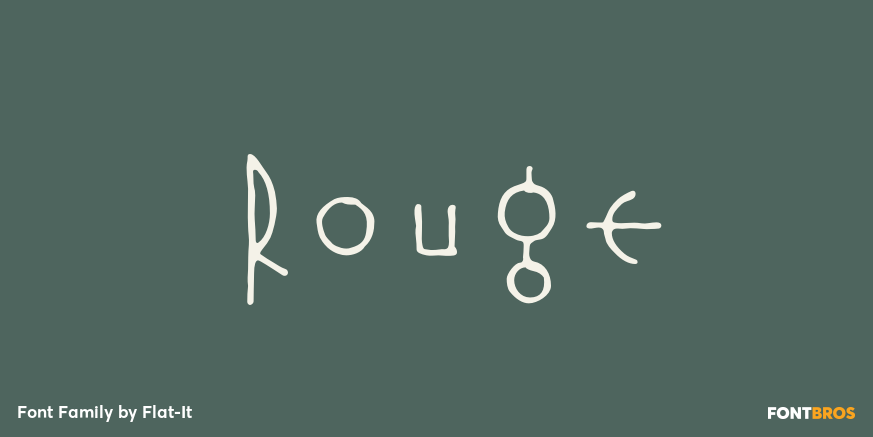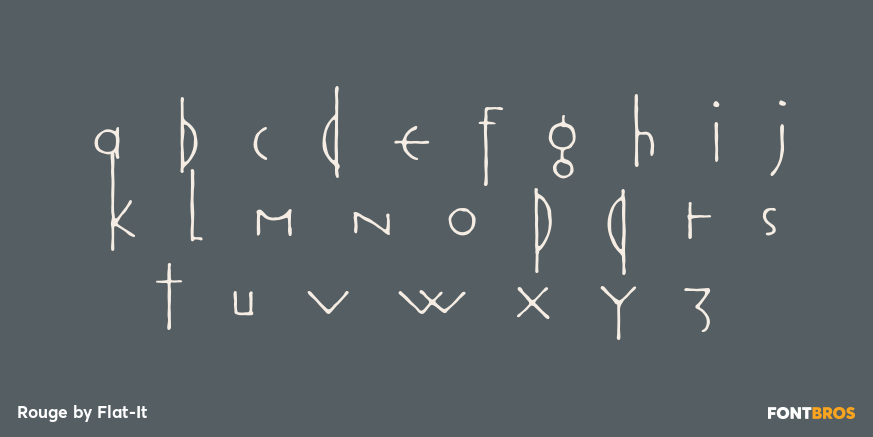
Rouge
Font Family by Flat-It
This unique font has been designed and is based on lip rouge on windscreen. But it carry different feeling for different people. E.G. Organic, mathematical or ancient.